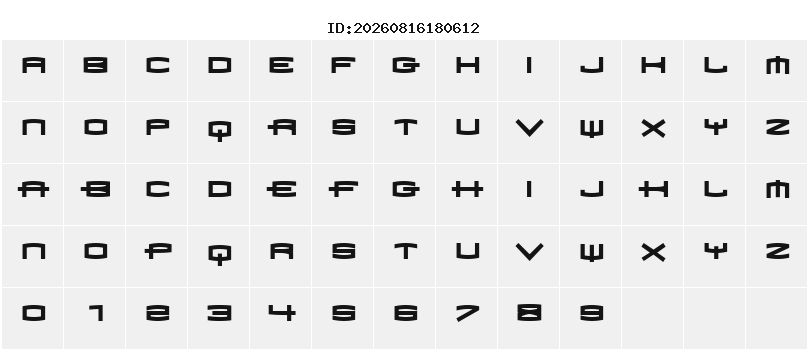
Spiderman Movie Bold Preview
• Font Name: Spiderman Movie Bold
• Full Font Name: Spiderman Movie Bold
• Version: 1.00 January 14, 2005
About Spiderman Movie Bold.ttf
Spiderman Movie Bold.ttf is a modern, elegant sans-serif font designed for ultimate readability and visual harmony. Perfect for branding, headlines, web design, and print materials.